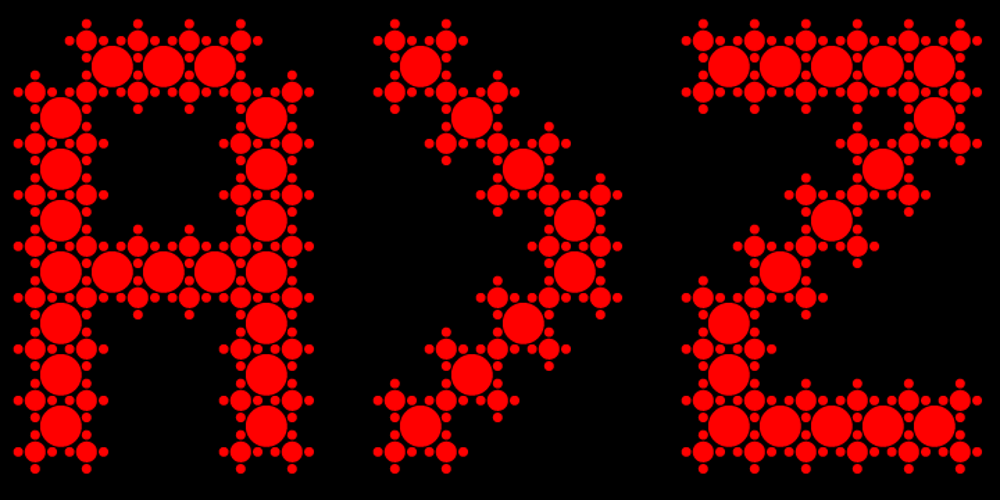
Fractal Font Family was designed by Tony de Marco and published by Just in Type. Fractal contains 1 styles and family package options. Fractal is a font whose Hausdorff-Besicovitch dimension is greater than its typographic dimension. Big is better. To be used at display sizes larger than 200pts.